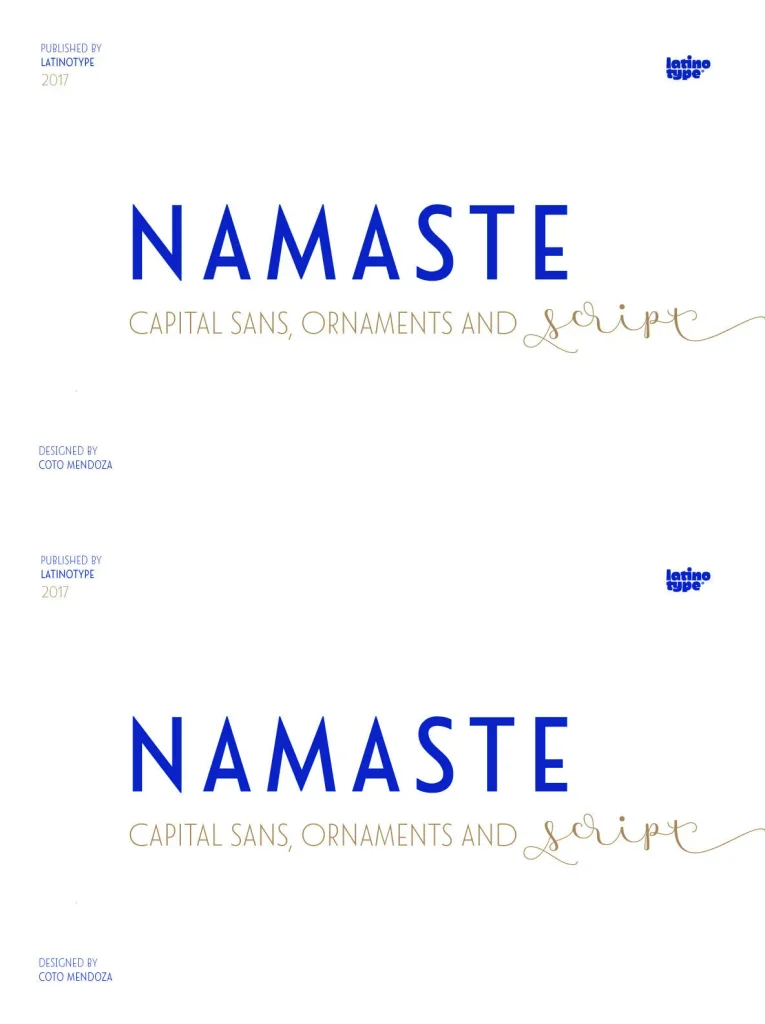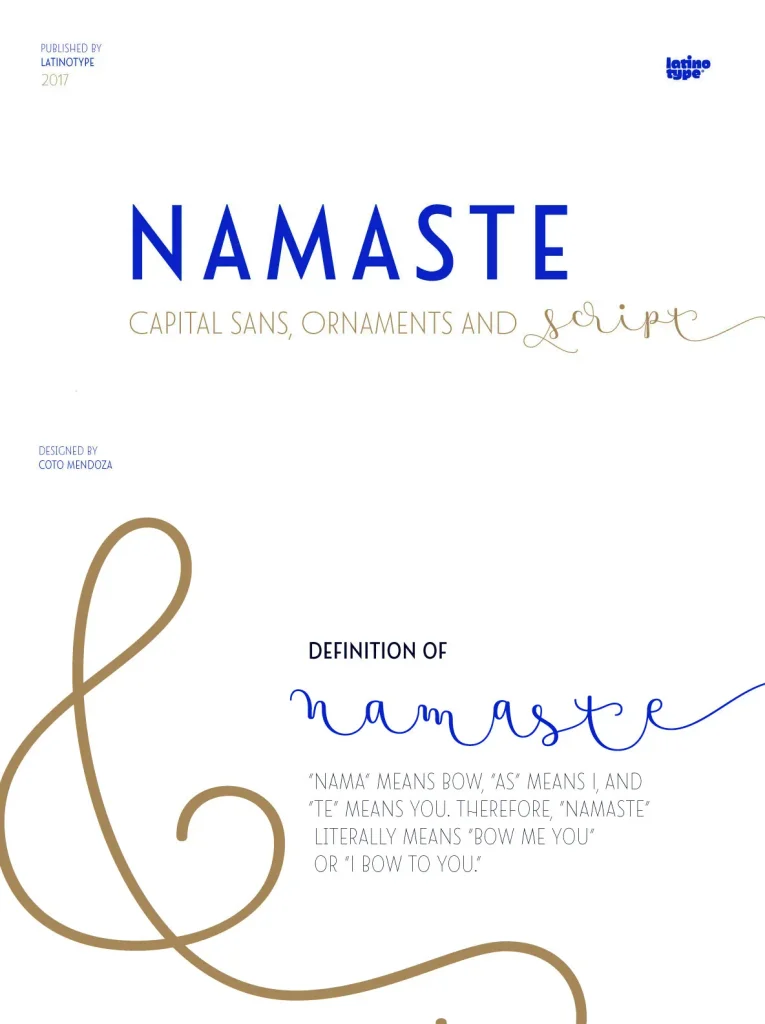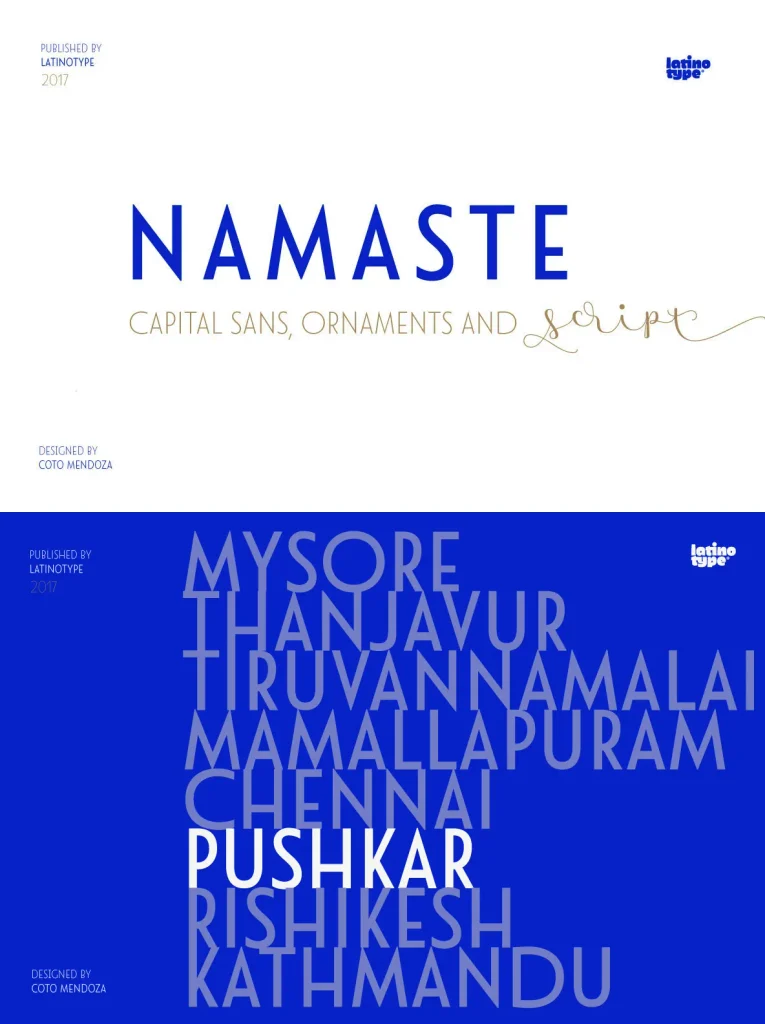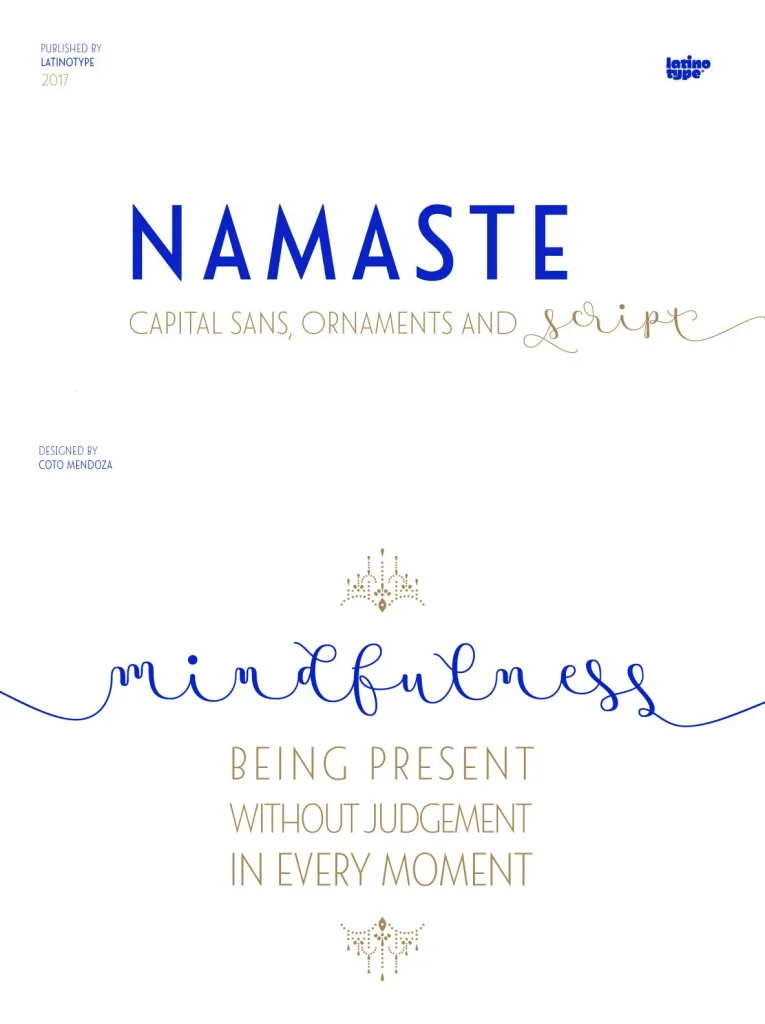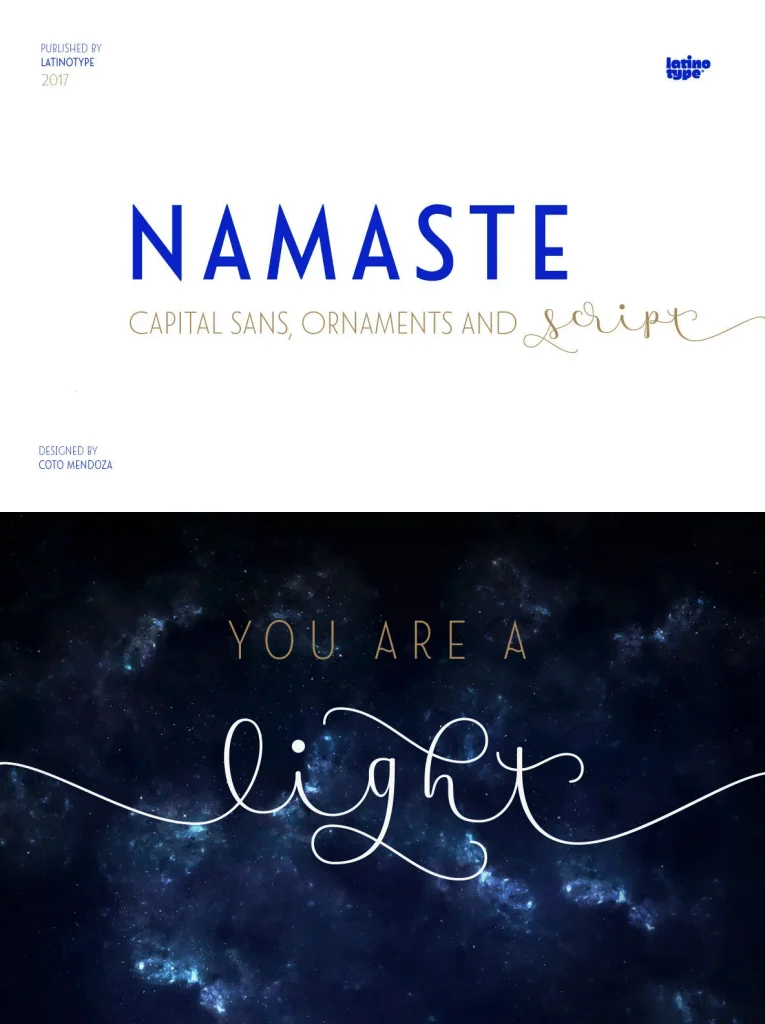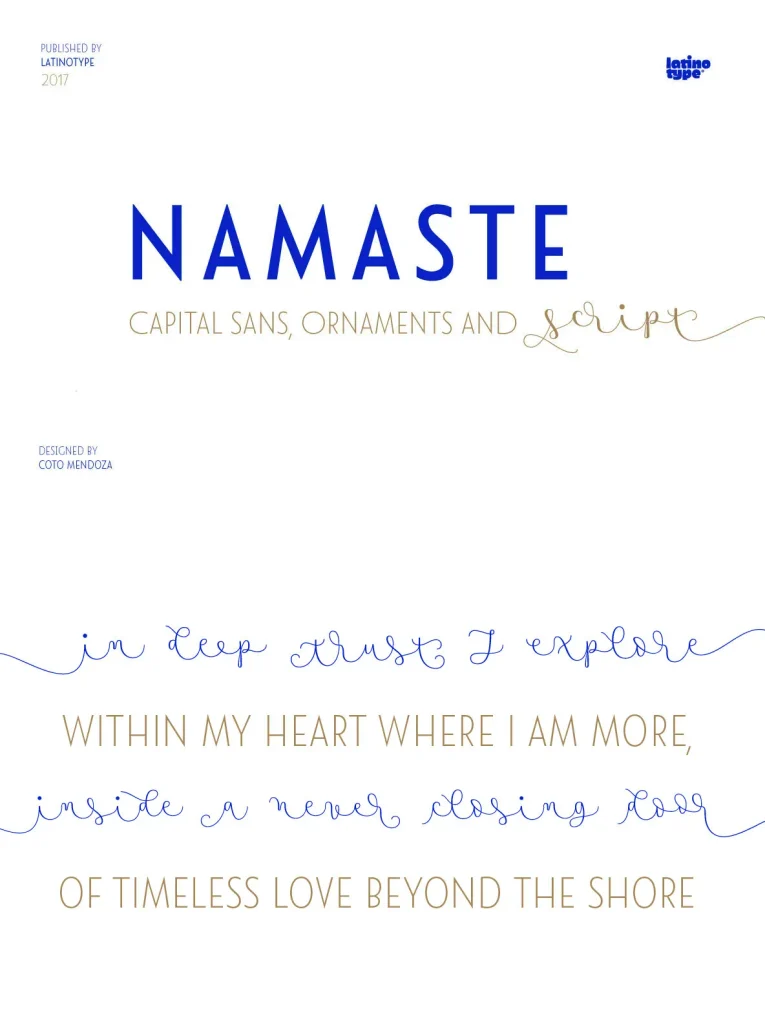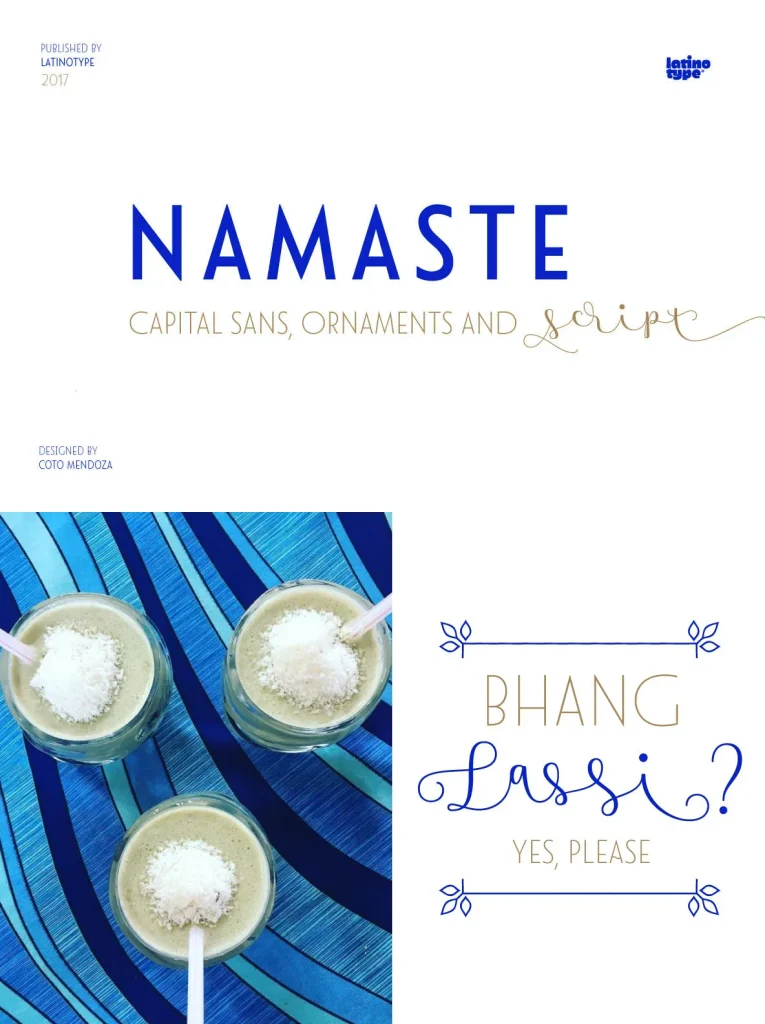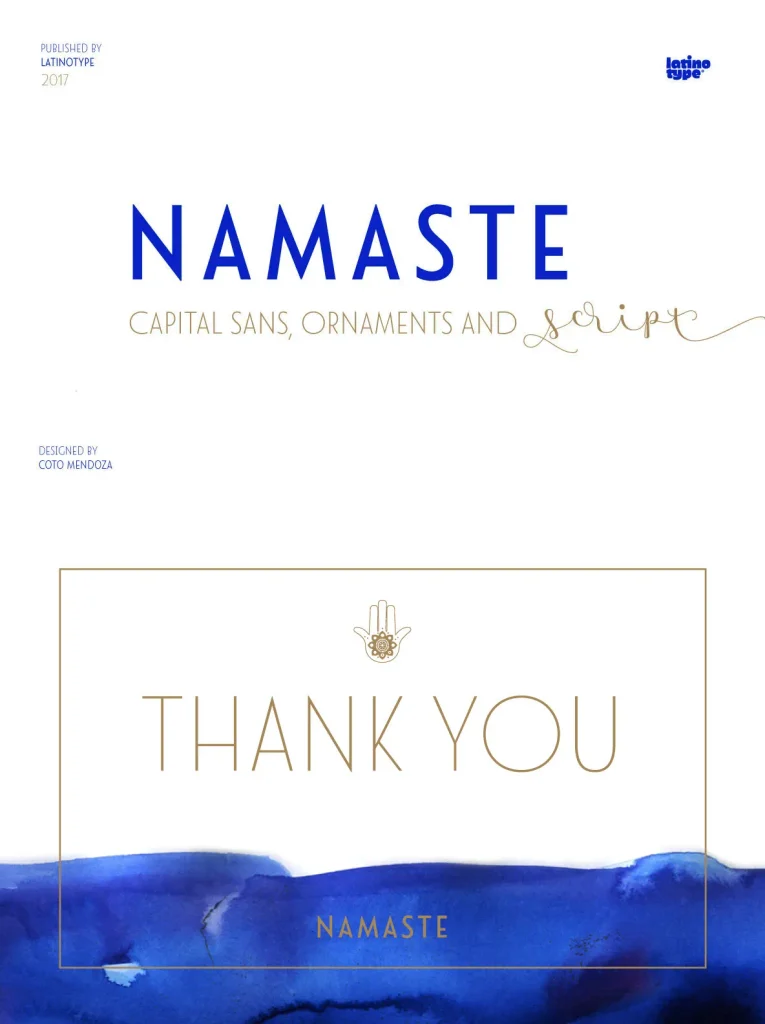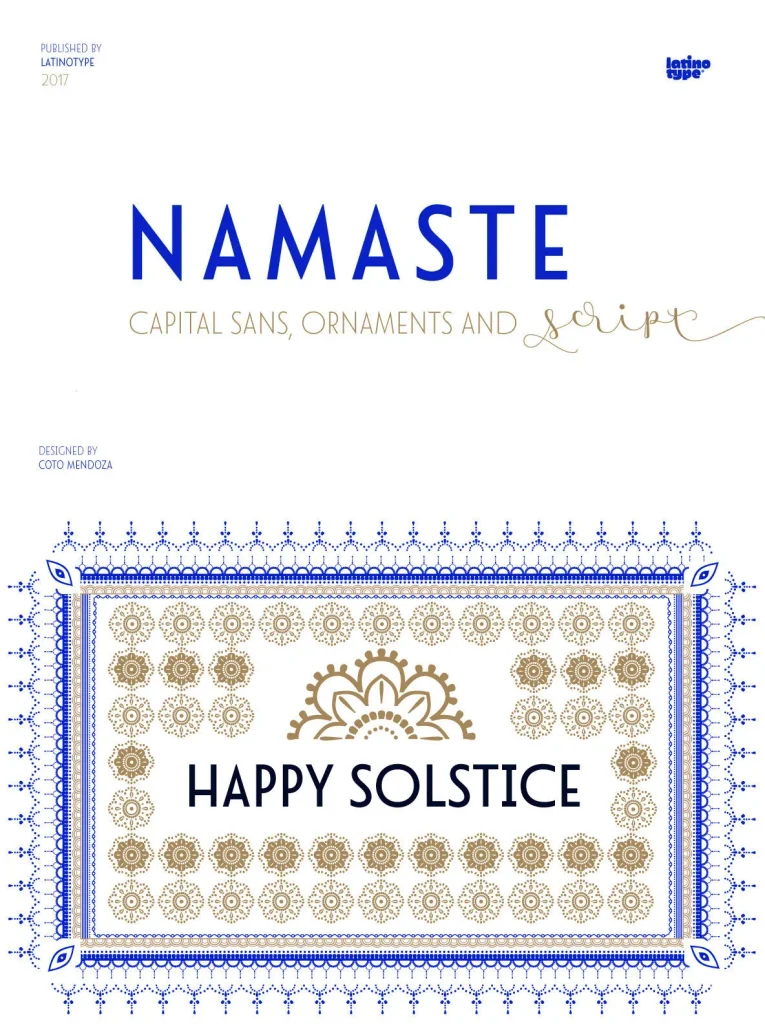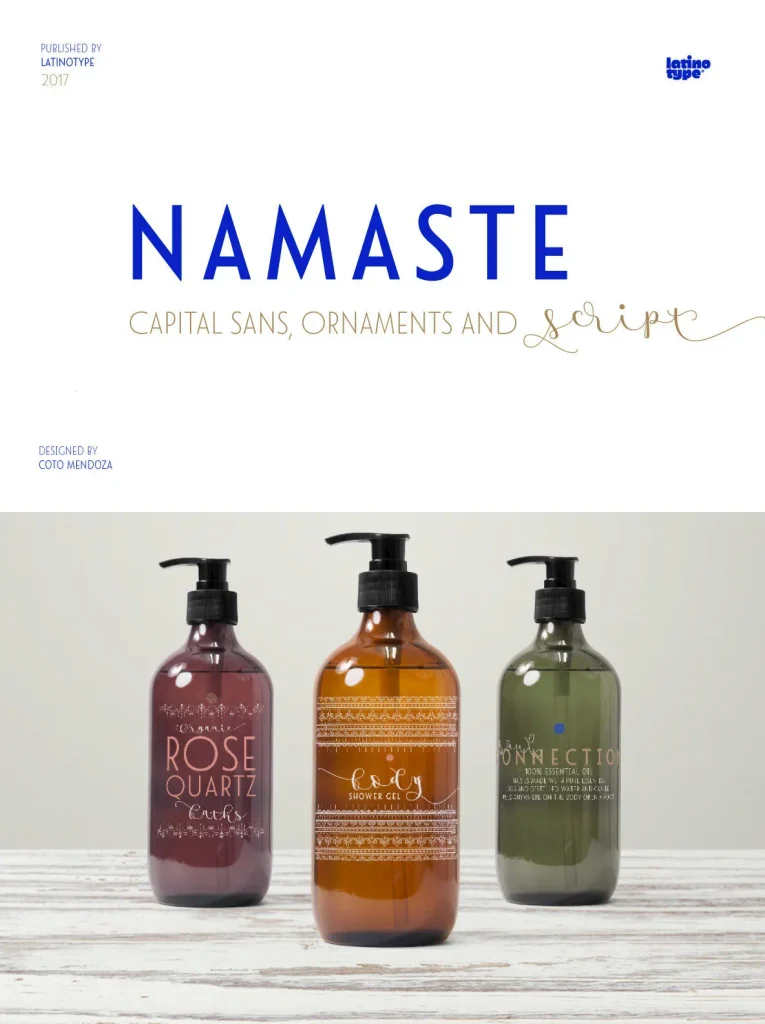
Namaste Font Collection
Namaste invites balance and mindfulness into every design. This elegant font collection celebrates spiritual harmony, offering two thoughtfully crafted variants that honor the tradition of Namaste. Each variant blends gentle curves and a tranquil presence, making it ideal for invitations, wellness branding, or design projects that seek a touch of serenity.
Two refined font styles for versatile use
Inspired by spiritual traditions and harmonious forms
Perfect for yoga studios, holistic brands, and creative print layouts
Infuse your designs with a refined sense of peace and grace. Namaste’s subtle personality makes it a distinctive choice for those who appreciate clarity and elegance in their typographic palette.